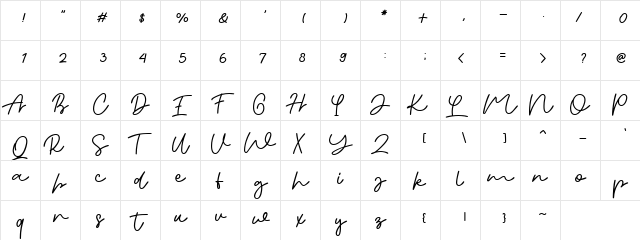
Orabelle is a composed and adaptable typeface that performs quietly and consistently across a wide range of design contexts.
Pro Tip: Use Orabelle in both headline and body roles to test its range before committing to a single application.